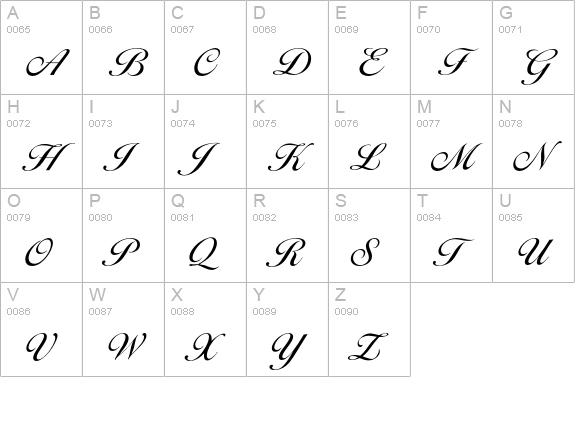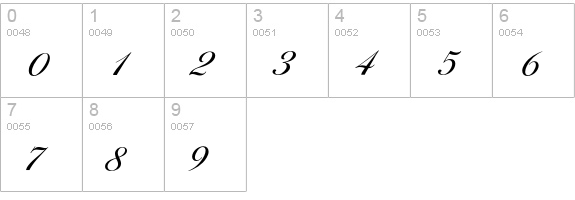
BallantinesScriptEF-Regular Font Details
BallantinesScriptEF-Regular is the standard, neutral variant in the BallantinesScriptEF typeface family \xE2\x80\x94 well suited to general body text, paragraphs, and standard typographic work.
BallantinesScriptEF-Regular is a stylish and elegant font that exudes sophistication and charm. Its smooth and flowing cursive style adds a touch of class to any design project. The graceful curves and intricate details of this font make it perfect for invitations, cards, and other special projects where a touch of elegance is desired. One of the best things about BallantinesScriptEF-Regular is that it is available for free download at FontsMarket.com. This means that you can add a touch of luxury to your designs without having to spend a dime. Whether you are a professional designer looking for a new font to add to your collection or someone looking to spice up their personal projects, BallantinesScriptEF-Regular is the perfect choice. Download it today and elevate your designs to a whole new level of sophistication.